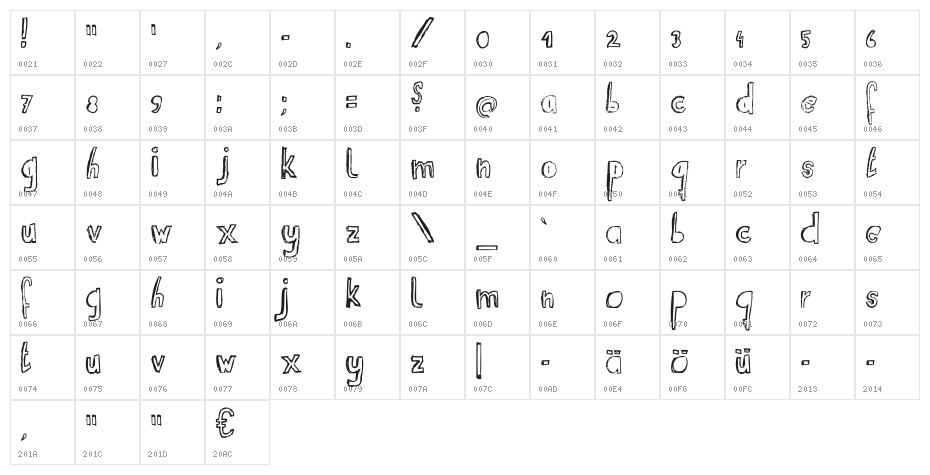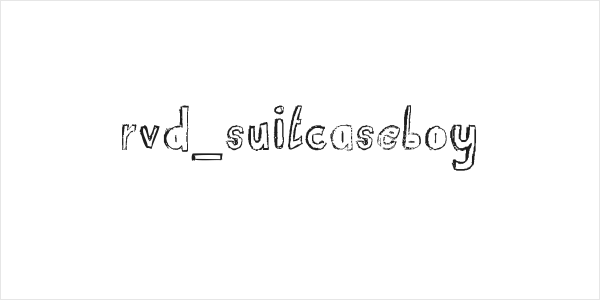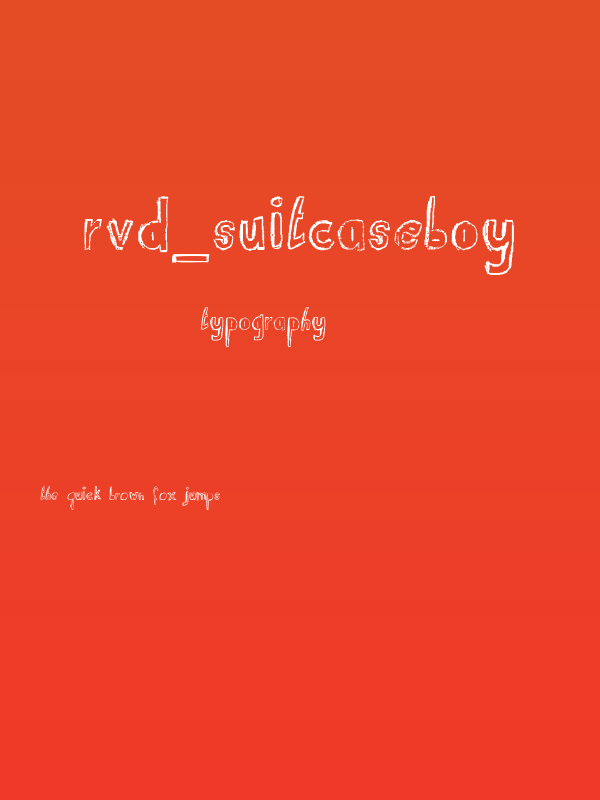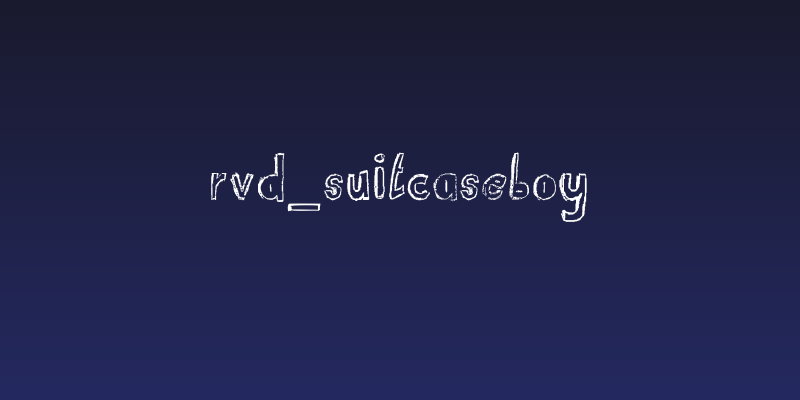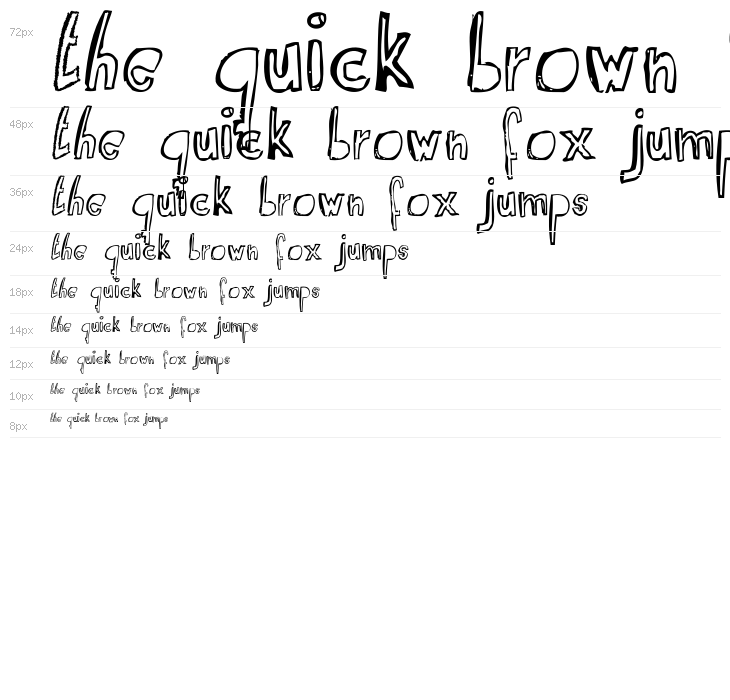
RvD_SUITCASEBOY Font
RvD_SUITCASEBOY Description
This font features a playful and artistic style with a hand-drawn appearance. Each character is uniquely crafted, giving it a textured and slightly distressed look. The irregular edges and varying line thicknesses contribute to its informal and whimsical aesthetic. The font maintains a consistent baseline, but the characters vary in width and height, adding to its quirky charm. The numbers and special characters follow the same artistic style, ensuring a cohesive look across all elements. This font is ideal for projects that require a creative and unconventional touch.
| Overall Style | Artistic, Whimsical |
| Use Case | Headlines, Posters, Creative Branding |
| Proposed Projects | Ideal for children's book covers, creative posters, artistic branding, and playful invitations. |